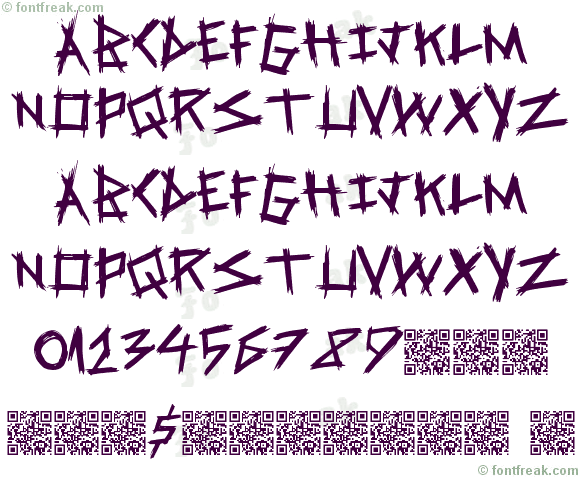
SpringRage
About SpringRage
SpringRage by Xerographer Fonts is a striking display font that captures attention with its unique, edgy design. This font falls into the decorative category, characterized by its irregular, jagged strokes that evoke a sense of energy and spontaneity. The bold stroke weight and high contrast between thick and thin lines create a dynamic visual appeal, making it perfect for designs that require a punchy, impactful statement. The spacing is intentionally varied, contributing to its raw and artistic vibe, which can enhance any creative project.
Ideal for a range of applications, SpringRage excels in areas where a bold impression is necessary. It is particularly well-suited for band posters, album covers, and promotional materials in the music industry, where its energetic style can resonate with audiences. Additionally, it can be effectively used for fashion branding and streetwear graphics, where a modern, rebellious aesthetic is desired. SpringRage also shines in digital content creation, making it a great choice for social media graphics, especially for those targeting a youthful demographic.
What sets the SpringRage font apart is its ability to convey emotion and attitude through typography. Its unconventional design allows for creative expression in a way that few fonts can achieve. Whether you’re crafting eye-catching visuals for a campaign or wanting to add an element of surprise to your work, the SpringRage font free download is a valuable addition to any designer's toolkit.